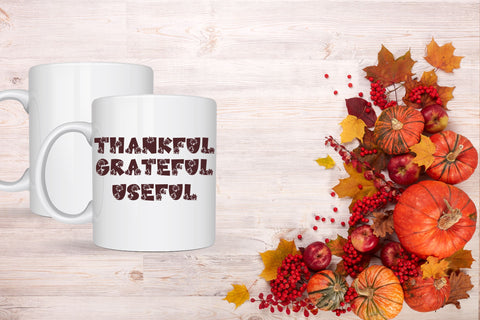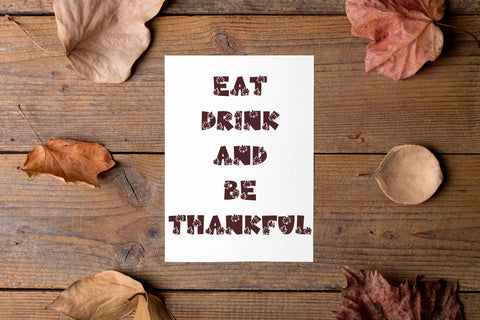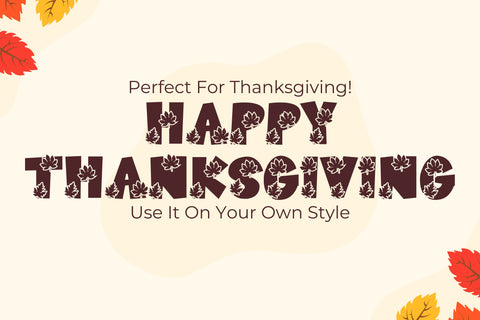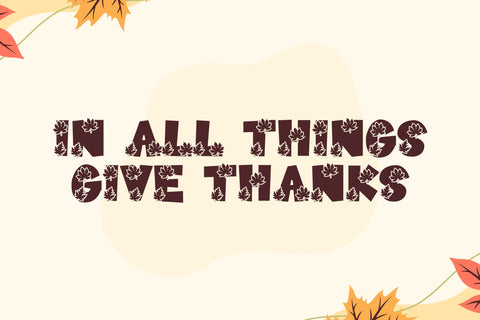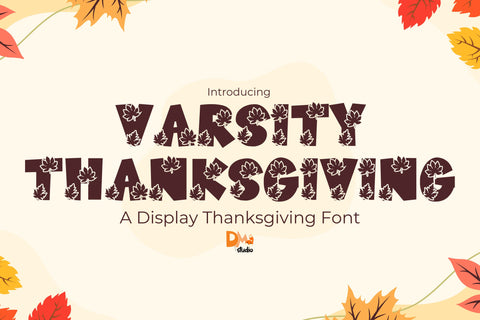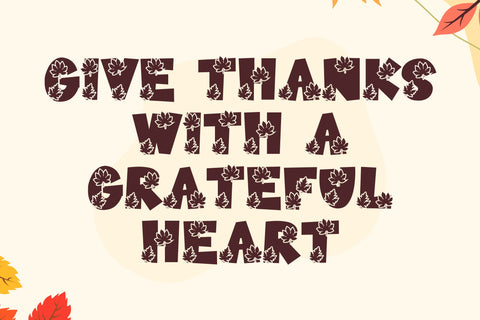
Varsity Thanksgiving Font
Varsity Thanksgiving – Festive & Playful Holiday Font
Varsity Thanksgiving is a warm and inviting display font that blends classic varsity-style lettering with a festive autumn twist. Perfect for Thanksgiving-themed projects, fall decor, greeting cards, holiday invitations, branding, and seasonal social media graphics, this font brings a cozy and celebratory feel to any design.
- Festive Varsity-Inspired Lettering: Combines bold varsity aesthetics with a warm, autumnal touch.
- Perfect for Fall & Holiday Designs: Ideal for Thanksgiving cards, seasonal branding, invitations, and decorations.
- Cozy & Playful Aesthetic: Captures the essence of gratitude, warmth, and celebration.
- Complete Character Set: Includes uppercase, lowercase, numbers, punctuation, and multilingual support.